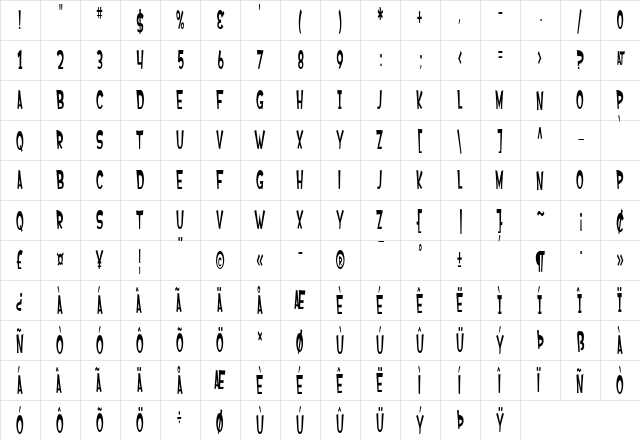
SF Ferretopia Regular
| Designer | ShyFonts Type Foundry |
Design Context for SF Ferretopia Typeface
SF Ferretopia takes a measured approach to typography — its balanced proportions and neutral character make it a reliable workhorse for both digital and print work.